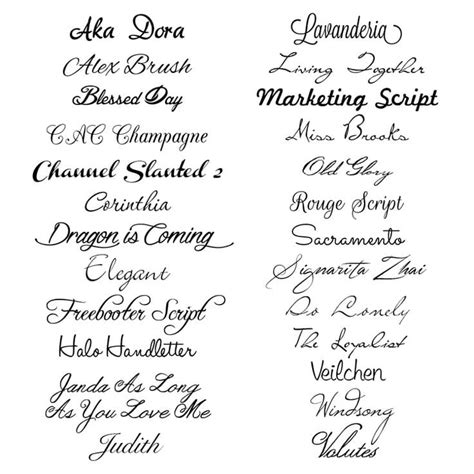
Script Fonts Meaning: Understand Their Style and Usage
Readers, have you ever noticed how certain fonts instantly grab your attention and make you feel a particular way? Maybe a bold, sans-serif font screams modern and professional, while a whimsical, handwritten font evokes feelings of warmth and creativity. This is the power of typography, and script fonts are a prime example of how it can shape our perceptions. Script fonts, with their flowing, cursive-like appearance, are more than just decorative elements. They convey meaning, evoke emotions, and leave a lasting impression.
Understanding the Essence of Script Fonts
Script fonts, also known as cursive fonts, are a captivating category of typography that draws inspiration from handwritten calligraphy. Their flowing, connected letters create a sense of fluidity and elegance, making them ideal for projects that require a touch of sophistication and artistry.
Script fonts have been around for centuries, with their origins tracing back to the rise of calligraphy in ancient civilizations. Over time, these handwritten styles evolved into digital font formats, allowing designers to incorporate the beauty and versatility of script fonts into a wide range of projects.
The Evolution of Script Fonts
The history of script fonts is intertwined with the development of calligraphy. From the elegant strokes of medieval manuscripts to the refined cursive styles of the Renaissance, each era left its mark on the evolution of script fonts. The invention of the printing press in the 15th century revolutionized the way text was reproduced, leading to the creation of typefaces that mimicked the flowing lines of handwritten script.
The 20th century saw a surge in the use of script fonts in advertising, branding, and graphic design. The advent of computer technology further expanded the possibilities, allowing designers to experiment with a wider range of script font styles and create custom designs with ease.
The Appeal of Script Fonts
Script fonts hold a unique allure that resonates with designers and audiences alike. Their flowing, interconnected letters create a visual rhythm that draws the eye and invites readers to linger on the text. This intrinsic beauty, coupled with their versatility, makes script fonts well-suited for a diverse range of applications.
Beyond aesthetics, script fonts often convey specific emotions and messages. Their handwritten appearance evokes feelings of authenticity, warmth, and personal connection. They are often used to add a touch of elegance, sophistication, or a whimsical touch to projects.
Exploring the Diverse Styles of Script Fonts
The realm of script fonts is as diverse as the calligraphers who inspired them. Each style boasts its own unique characteristics, making it crucial to understand their nuances to effectively utilize them in your designs.
Formal Script Fonts
Formal script fonts exude an air of sophistication and refinement. Their elegant, carefully crafted strokes are reminiscent of traditional calligraphy and are often used for invitations, wedding stationery, and formal documents. These fonts typically feature a high degree of legibility, ensuring that the text remains clear and readable even at smaller sizes.
Examples of formal script fonts include:
- Cooper Black
- Engravers MT
- Brush Script MT
Casual Script Fonts
Casual script fonts, in contrast to their formal counterparts, possess a more relaxed and playful character. Their flowing, handwritten strokes might appear less structured, giving them a more personal and informal feel. These fonts are ideal for projects that aim to convey a sense of warmth, creativity, and approachability.
Examples of casual script fonts include:
- Snell Roundhand
- Lucida Handwriting
- Edwardian Script ITC
Modern Script Fonts
Modern script fonts blend the classic elegance of traditional calligraphy with contemporary design elements. They may feature bold strokes, unique letterforms, or a mix of lowercase and uppercase letters, creating a unique and impactful aesthetic. These fonts are often used in branding, web design, and contemporary publications.
Examples of modern script fonts include:
- Alex Brush
- Pacifico
- Great Vibes
Mastering the Art of Using Script Fonts
Selecting the right script font can significantly impact the overall message and aesthetic of your design. Here are some key tips for using script fonts effectively in your projects:
Consider the Context
The context of your project is paramount when choosing a script font. A formal wedding invitation calls for a refined and elegant script like "Engravers MT," while a fun, casual flyer benefits from a more playful and approachable script like "Snell Roundhand." Assess the message and target audience to select a font that effectively communicates your intentions.
Prioritize Legibility
While script fonts are aesthetically pleasing, they can pose challenges in terms of legibility, especially when used in large blocks of text. Choose a script font with clear letterforms and spacing to ensure readability, especially in digital formats where screen size can affect viewing conditions.
Pair Strategically
Script fonts can be used effectively in conjunction with other font styles, like sans-serif or serif fonts, to create visual contrast and enhance the overall design. Pair a script font with a clean and modern sans-serif typeface for a balanced and contemporary look, or use a serif font to add a touch of classic elegance.
Use Sparingly
Script fonts are best used sparingly, particularly in large blocks of text. Use them as accent fonts for headlines, titles, or short snippets of text to create a visual focal point and add a touch of elegance.
Script Fonts in Action: Real-World Examples
Script fonts are widely used across various industries, from branding and advertising to web design and publications. Here are some real-world examples showcasing the versatility of script fonts:
Branding
Numerous brands have incorporated script fonts into their logos and branding materials to evoke specific emotions and convey brand values. For example, the iconic script font used in the Coca-Cola logo exudes warmth, nostalgia, and a sense of tradition. The handwritten style of the Starbucks logo, with its whimsical swirls, adds a touch of approachability and comfort to the brand identity.
Websites
Script fonts can enhance the visual appeal of websites, adding a touch of elegance and personality. They are often used for headings, titles, or call-to-action buttons, creating a visual focal point and drawing attention to key content.
Publications
Script fonts are frequently used in magazines, books, and other publications to create a visually engaging and memorable reading experience. They can add a touch of sophistication to headlines, titles, or even body text, enhancing the overall visual appeal of the publication.
Invitations
Script fonts are a staple in the world of invitations, particularly for wedding invitations and formal events. Their elegant, flowing strokes create a sense of refinement and sophistication, perfectly capturing the essence of a special occasion.
Common Questions About Script Fonts
What are the best script fonts for logos?
Choosing the right script font for a logo depends on the brand's identity and target audience. For a modern and sophisticated brand, a script font like "Alex Brush" or "Pacifico" might be suitable. A classic and traditional brand might opt for "Engravers MT" or "Snell Roundhand."
Are script fonts suitable for website content?
Script fonts can be used for website content, but it's important to prioritize legibility. They are best used sparingly for headings, titles, or call-to-action buttons, while body text should be in a more readable font.
How can I choose the right script font for my project?
Consider the context, target audience, and desired message. Explore different script font styles and experiment with their appearance in your design to find the one that best matches your vision.